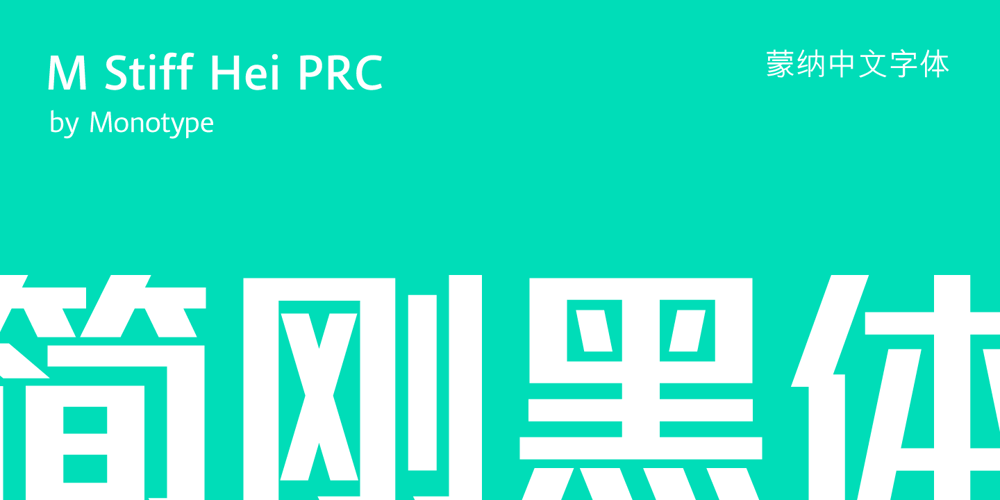
M Stiff Hei PRC
M Stiff Hei PRC font
M Stiff Hei PRC Font Family was designed by Monotype HK Design and published by Monotype HK. M Stiff Hei PRC contains 5 styles and family package options. Stems (豎) and crossbars (橫) are direct and simple, dots (點) are short but authoritative, downstrokes (撇、捺) are no longer curvy but straight and sharp, thus, a smart and straightforward typeface. Bold in this family is rough and tough, demonstrating a high extent of muscularity. Meanwhile Light is neatly, naturally and nicely crafted, aiming to achieve high legibility. A popular choice for advertising with diverse usages.